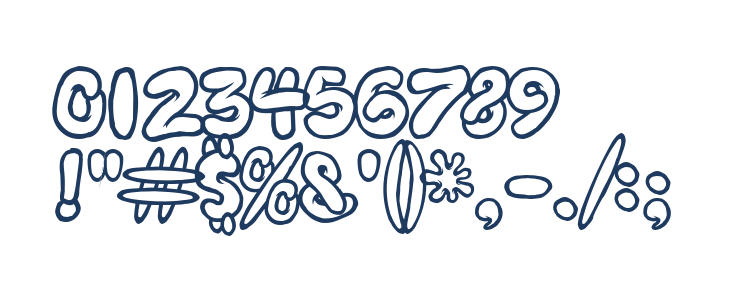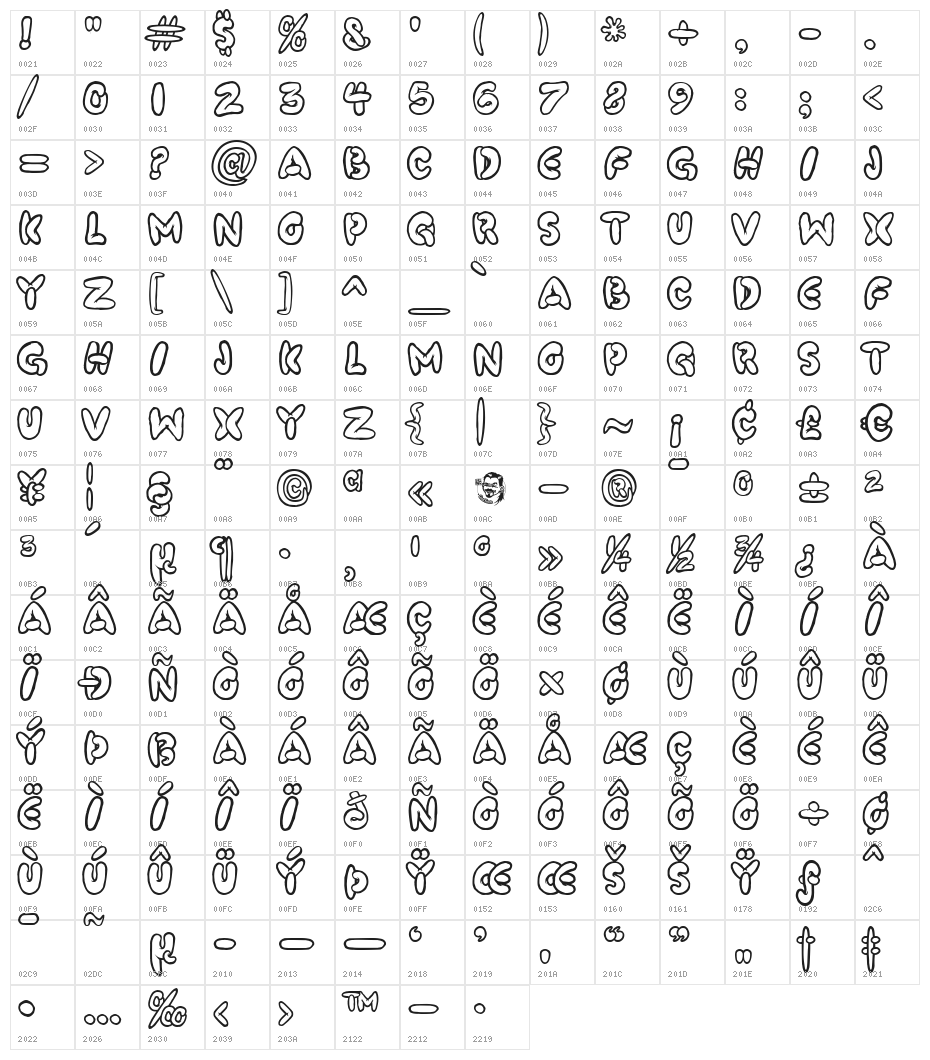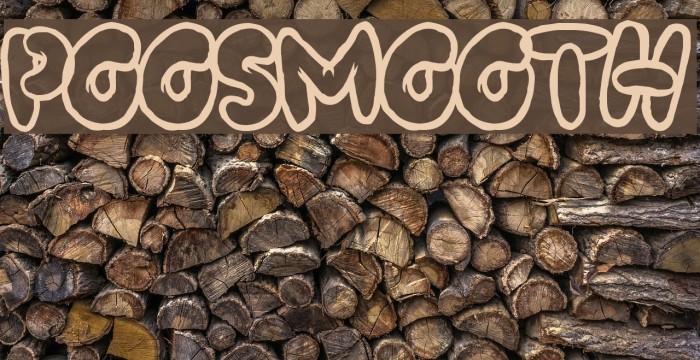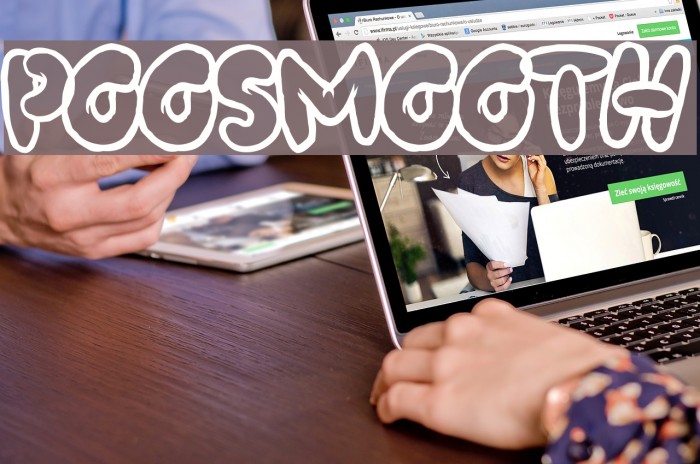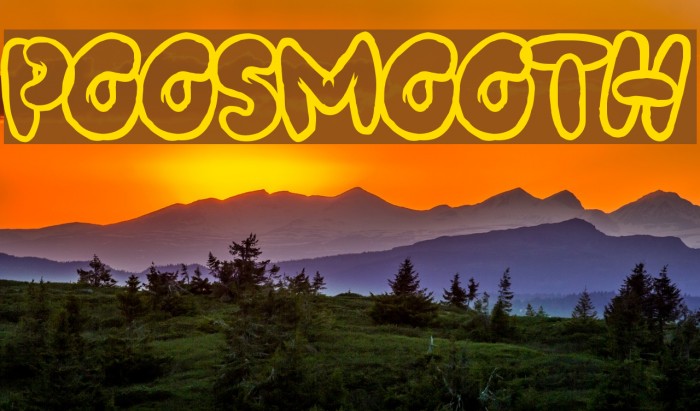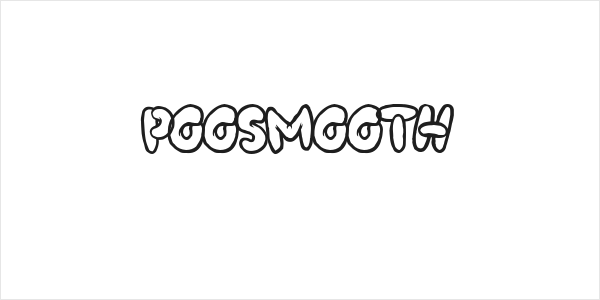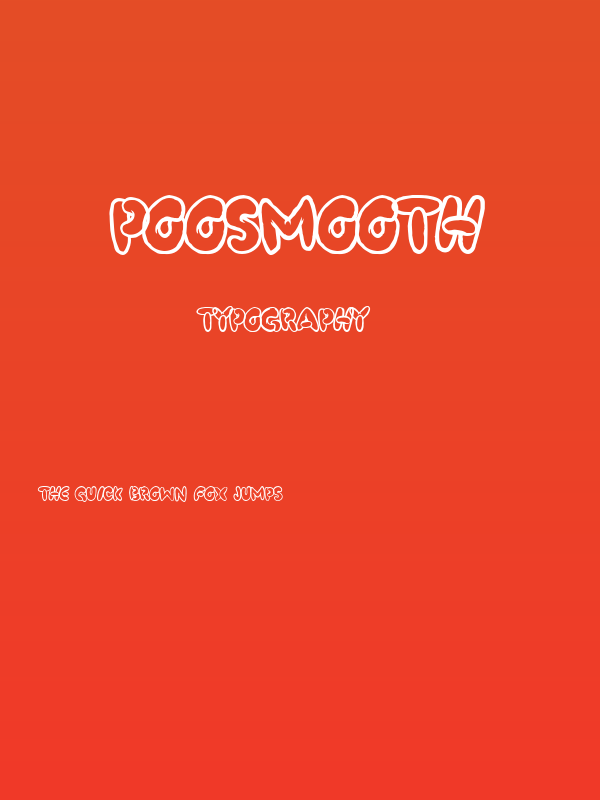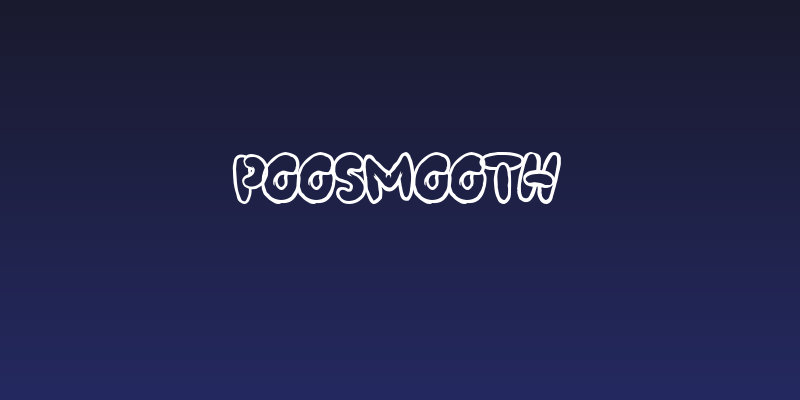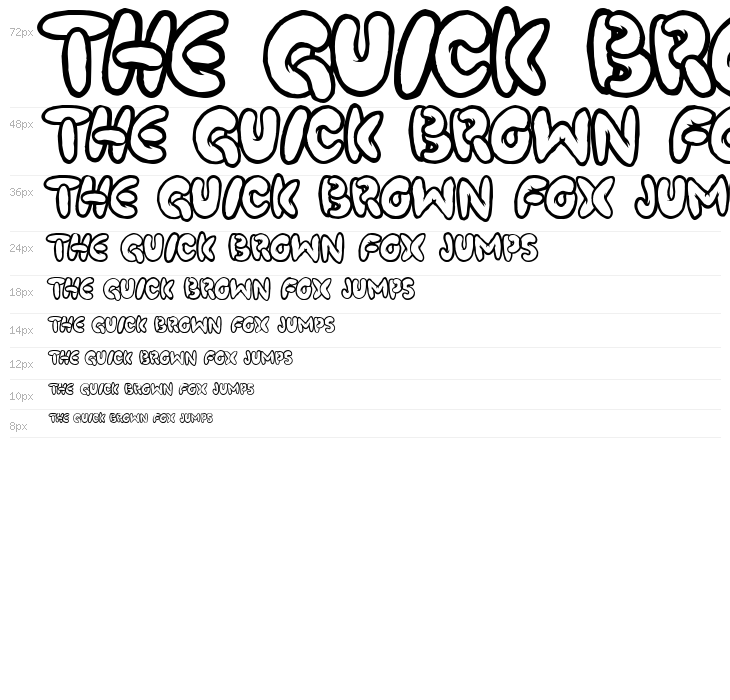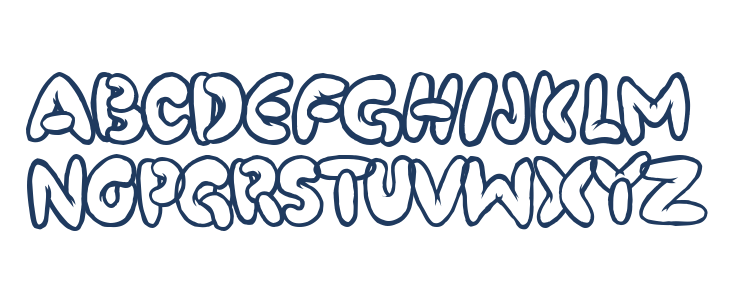
PooSmooth Font
PooSmooth Description
This playful and bold font features a smooth, rounded style with a thick outline that gives it a cartoonish and fun appearance. The letters are uniformly wide, creating a sense of balance and consistency across both uppercase and lowercase characters. The numbers and special characters maintain the same playful aesthetic, making the font versatile for various creative projects. Its unique style is eye-catching and memorable, perfect for designs that aim to stand out. The font's rounded edges and bold presence make it ideal for projects that require a friendly and approachable look.
| Overall Style | Playful, Cartoonish |
| Proposed Projects | Ideal for children's books, comic strips, playful branding, and eye-catching posters. |